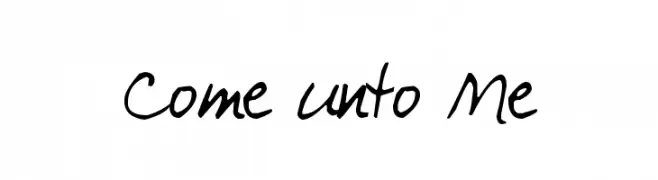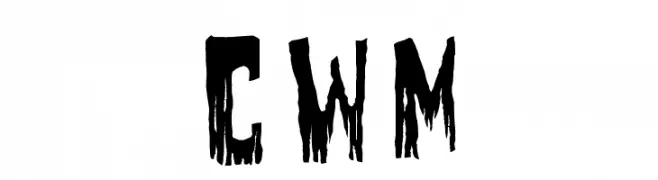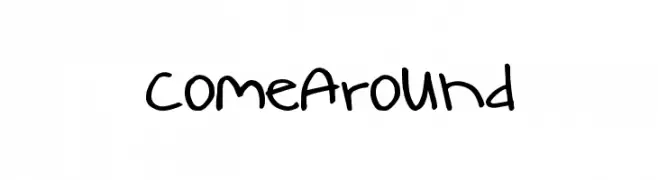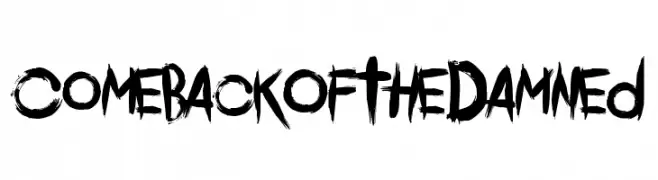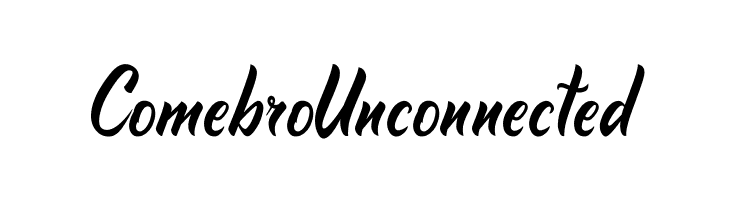
A bold, three-dimensional font with a shadow effect, offering a modern and striking appearance.
A bold, geometric font with dynamic striped patterns on uppercase letters.
A bold, modern font with geometric shapes and dynamic patterned elements.
A bold, geometric font with high contrast and a futuristic style.
A casual, handwritten font with smooth, fluid strokes and a playful appearance.
A playful, cursive font with a romantic, handwritten style.
A dripping, eerie font perfect for horror-themed designs.
A bold, distressed font with a hand-drawn, energetic style.
A playful, casual handwritten font with smooth, flowing strokes.